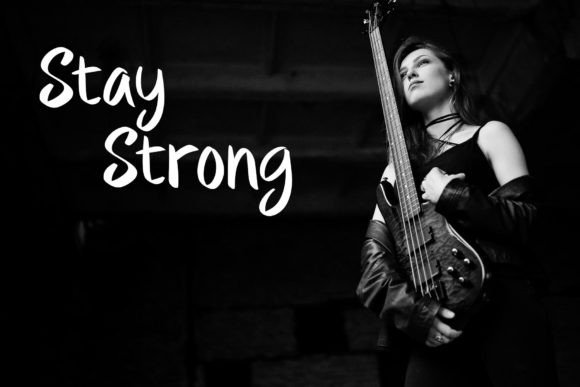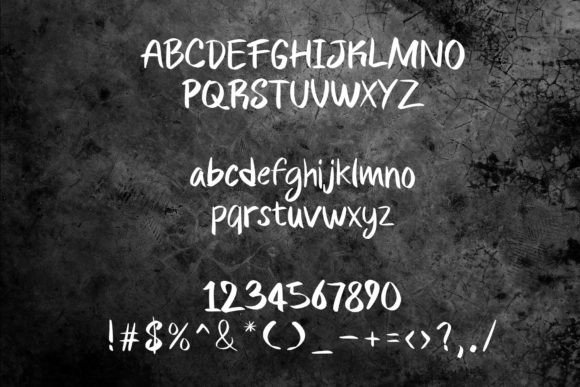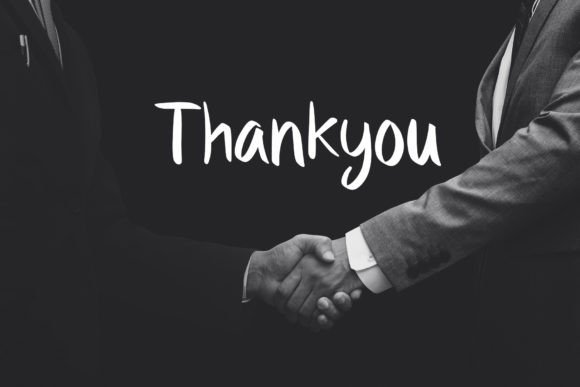
The Ultimate Guide to Dirty Bunny Font: A Designer’s Delight
An Honest Review of Dirty Bunny Font
- ✨ Perfect for display text: Dirty Bunny font is designed to make a statement. Its bold, playful, and whimsical style makes it ideal for logos, greeting cards, package design, and more.
- ✅ Elegant and refined: Despite its playful nature, Dirty Bunny font has an elegant side that works beautifully for wedding invitations, book titles, and other sophisticated projects.
- 🎉 Versatile: This font is perfect for various DIY projects, craft designs, and Christmas projects. You can use it to create unique and eye-catching designs that stand out from the crowd.
- 🤔 Limited use for body text: Due to its bold and playful nature, Dirty Bunny font might not be the best choice for body text. It’s best used for headings, titles, or display text.
- ⚠️ Glyph limitations: While Dirty Bunny font has a range of glyphs and stylistic alternates, it might not have everything you need for a specific project. Be sure to explore the font’s capabilities before committing to it.
The Backstory of Dirty Bunny Font
The story behind Dirty Bunny font is one of creativity and experimentation. Designed with the modern designer in mind, this font combines playfulness with elegance. The designer aimed to create a font that would inspire creativity and bring a touch of whimsy to any project.
| Font Name | Dirty Bunny Font |
| Author | Letterafa Studio |
| What is Dirty Bunny font best used for? | Dirty Bunny font is perfect for display text, logos, greeting cards, package design, and more. |
| Is Dirty Bunny font suitable for body text? | No, Dirty Bunny font is best used for headings, titles, or display text. It’s not recommended for body text due to its bold and playful nature. |